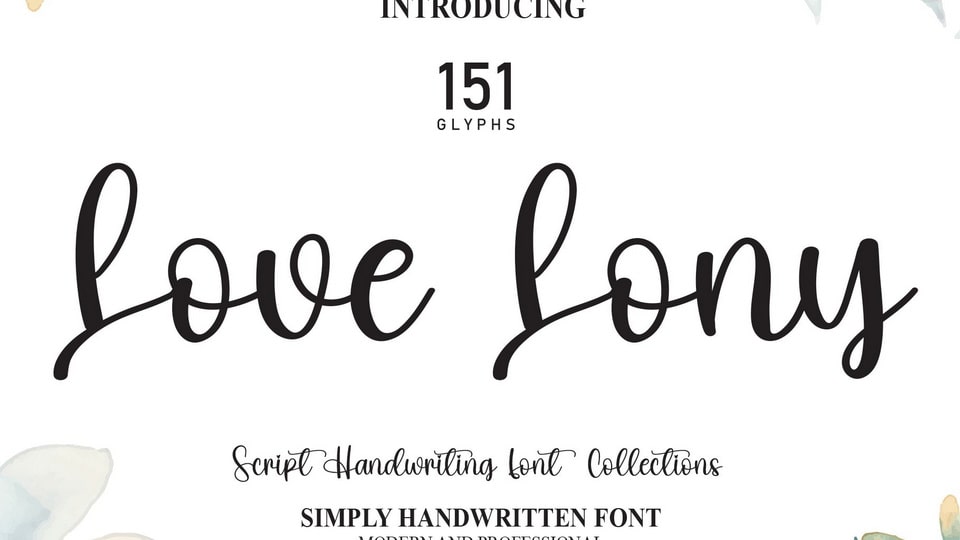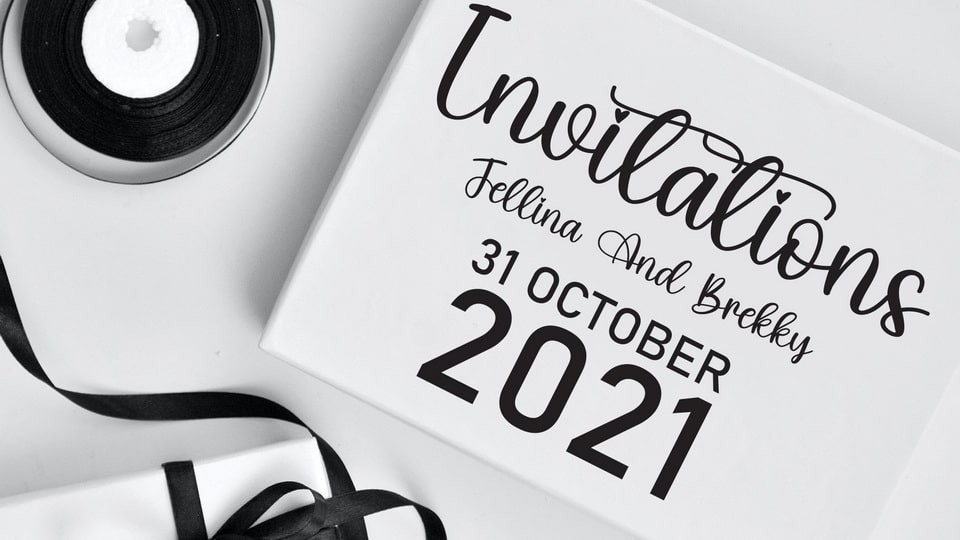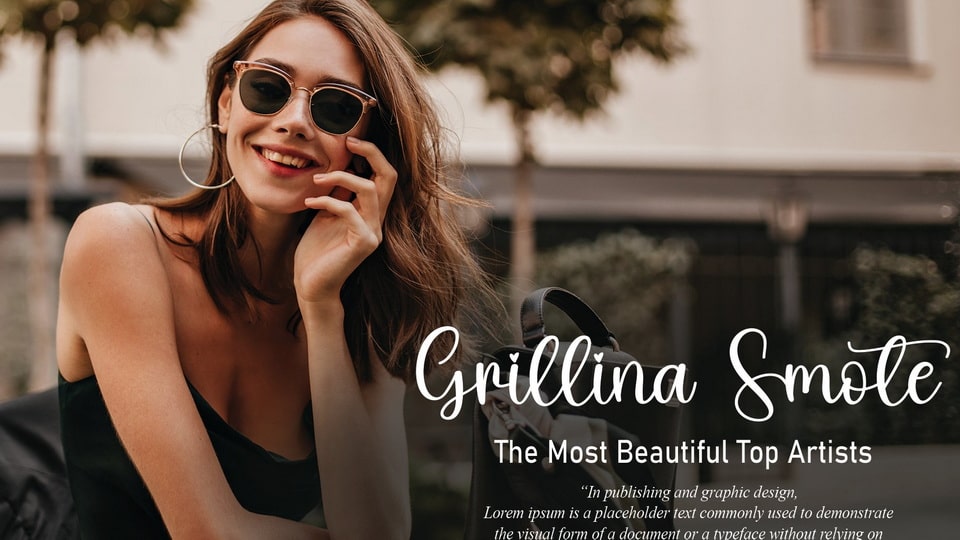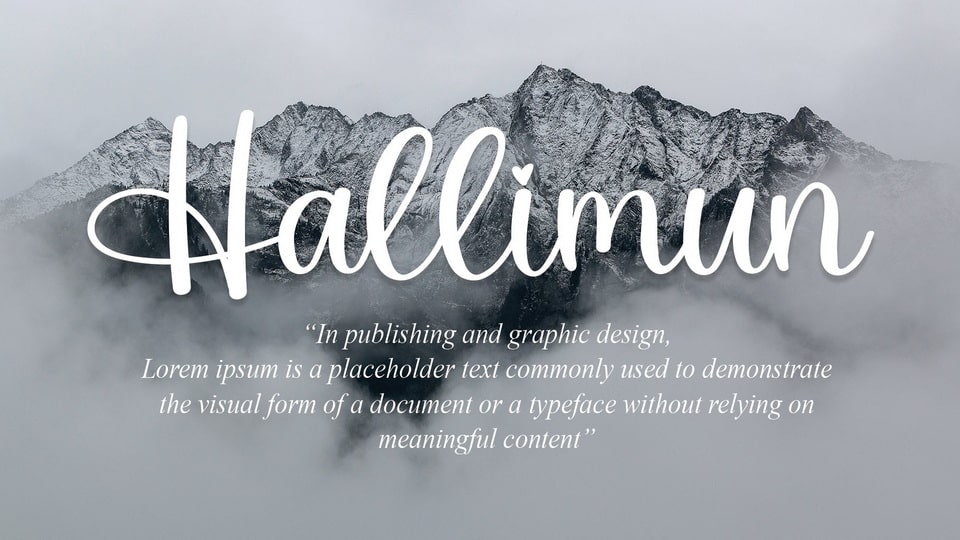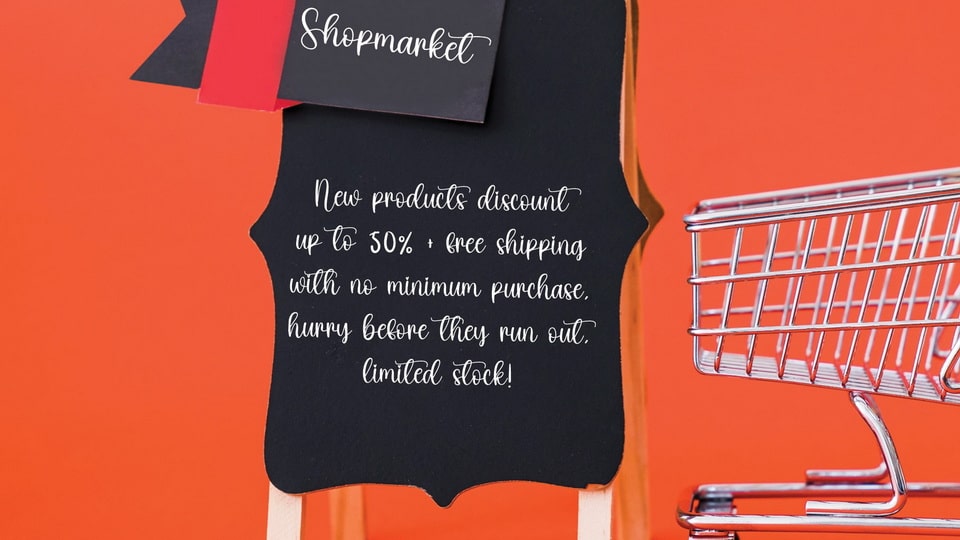
Love Lony is a romantic and sweet handwritten script font. Modern and elegant, this typeface is made of beautiful creative strokes.
Love Lony font is perfect for your creative ideas, both formal and informal. It has a modern style with a touch of creative ideas that is very suitable to be applied anywhere that requires creative ideas such as invitation cards, letterheads, website logos, social media, banners, advertisements, brochures, packaging products, leather products, and any product that requires writing.